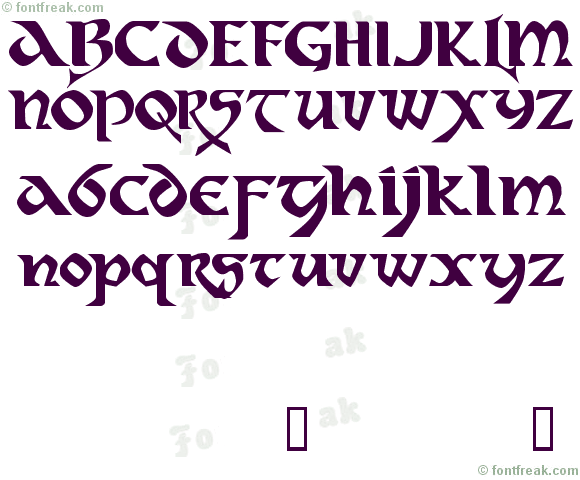
Dahaut
About Dahaut
Dahaut, designed by David F. Nalle in 1998 and published by The Scriptorium, is a striking display font that captures attention with its unique visual appeal. This shareware font is characterized by its bold, angular forms and a distinctive serif style that embodies a sense of modernity while paying homage to traditional type design. The strokes of Dahaut exhibit a varied weight, creating an engaging contrast that enhances its legibility and artistic flair. The spacing is carefully crafted, ensuring that each letter stands out without feeling cramped, making it a versatile choice for various design applications.
Dahaut is particularly suited for use in wedding invitations, where its elegant yet contemporary feel can add a touch of sophistication. It also shines in movie posters, drawing viewers in with its dramatic presence. Restaurant menus will benefit from its ability to convey a stylish atmosphere, while branding materials for small businesses can leverage its uniqueness to establish a memorable identity. Graphic designers and content creators will find Dahaut to be an invaluable addition to their font collections, offering a perfect blend of creativity and functionality.
The distinctive features of the Dahaut font make it stand out in a crowded marketplace. Its ability to balance boldness with elegance allows it to function in various contexts, from formal to casual. With its engaging aesthetics and practical applications, Dahaut is more than just a typeface; it’s a tool for expression. For those looking to enhance their projects with a dynamic font, the Dahaut font free download offers an excellent opportunity to explore its potential without commitment. Embrace the unique style of Dahaut and elevate your design work today.